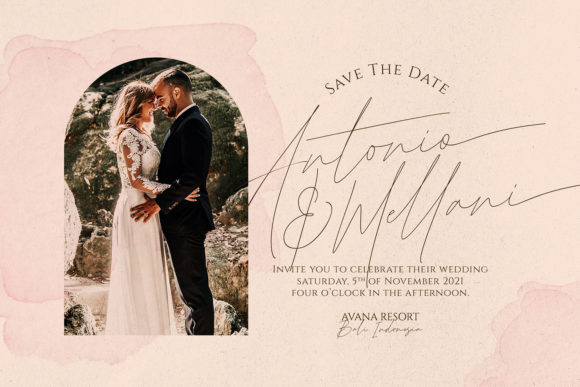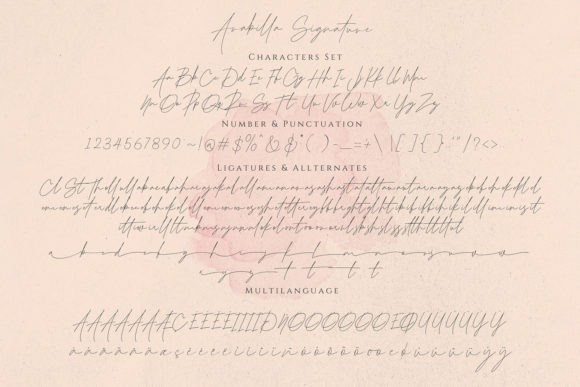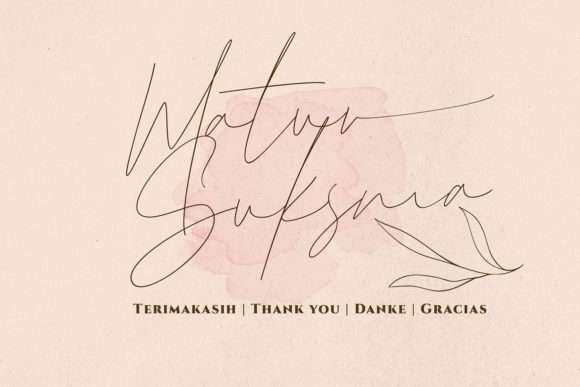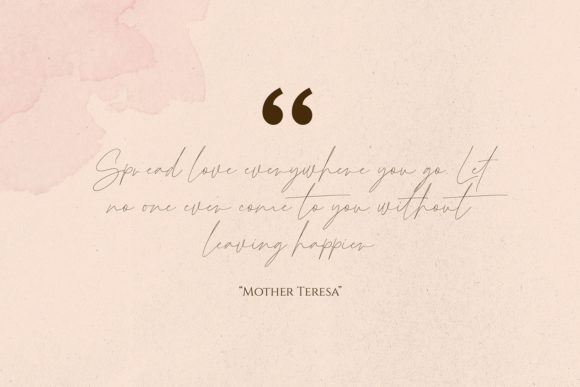
About Arabilla Signature Font
Arabilla Signature is a luxurious script font. It has a clean, thin and smooth vibe and it will be a hit for any design that you want to add it to. This font is PUA encoded which means you can access all of the glyphs and swashes with ease!